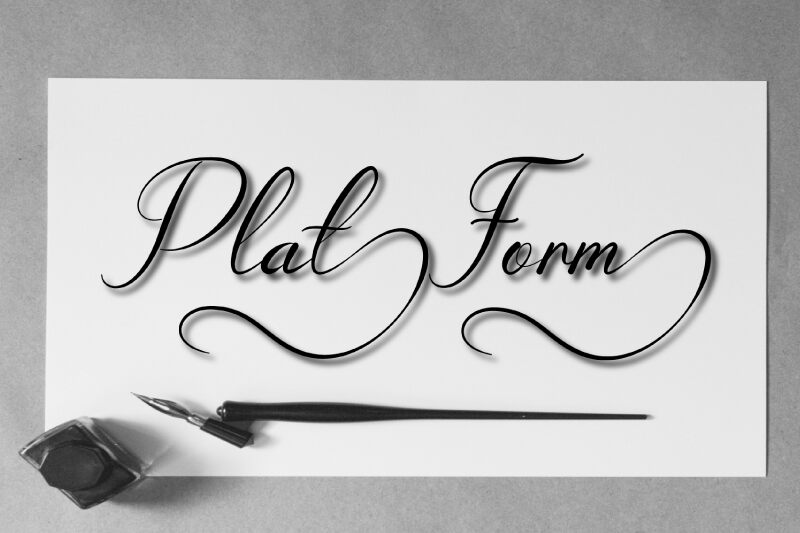
Platform Italic
Platform Italic font is a hypnotizing script display with a relaxed handwriting style. The characters showcase elegance, class, and charm in them, making the free calligraphy typeface ideal for important high-profile projects. Made by Design Vector10, the font comes with a light weight and rounder curves of the alphabet.
Use Platform Italic light script font in creating typography for wedding cards, handwritten invitation card letters, personalization projects, business brands (fashion and production), food brand packaging design, body cleanness products branding, stationery compatible signatures imprinting design(s), product logo designs like signature flashlight or kitchen-related items etc. Enjoy using this calligraphy typeface freely!